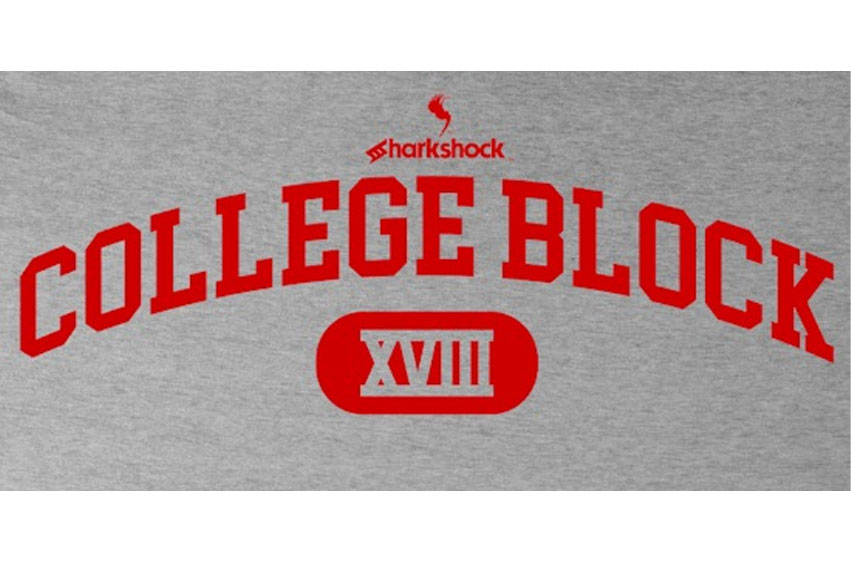
College Block Font is a great slab serif typeface. Introducing to you a font that is great for high-end design projects. College Block font is a classy serif typeface that takes the look of a purely lavish style. You know, once the product has met the needs of the majority of users, it will quickly become popular and popular. Enjoy the College Block product and add personality to your designs now.
College Block Font is a clean geometric and modern serif typeface inspired by technical fonts and industrial design. This serif font was designed and published by Sharkshock.